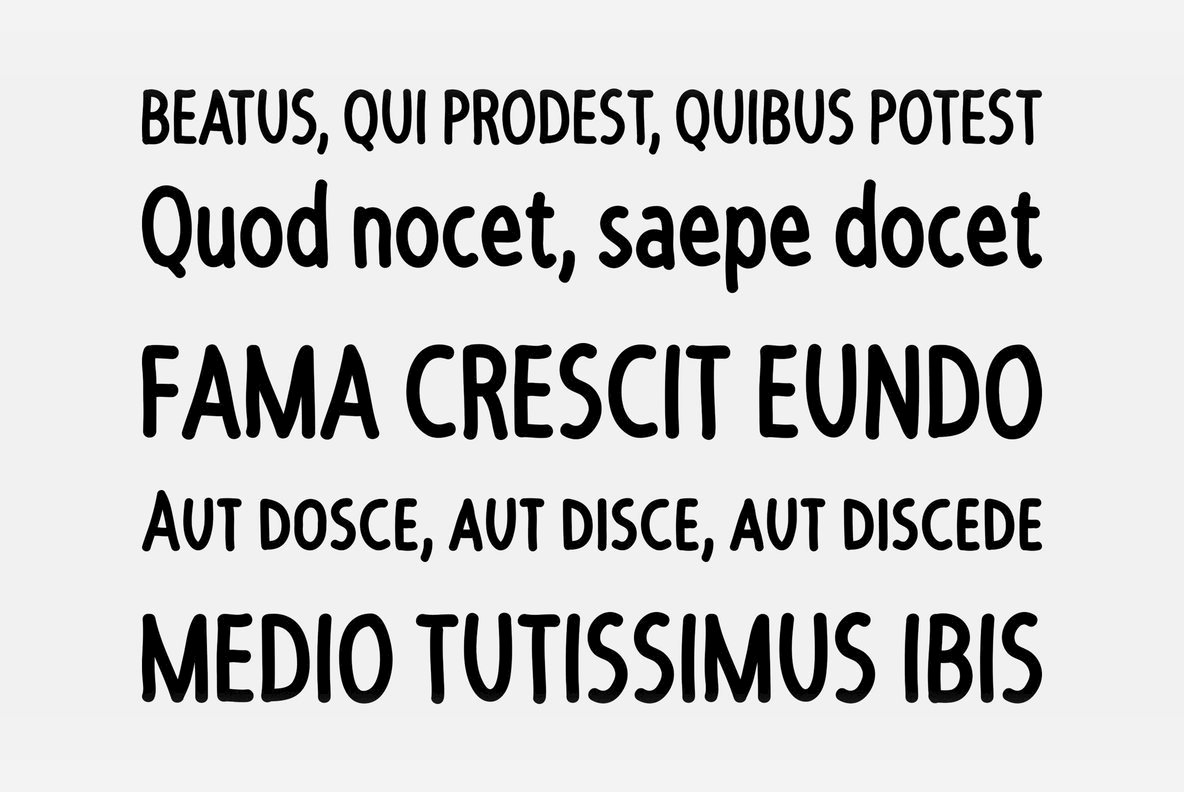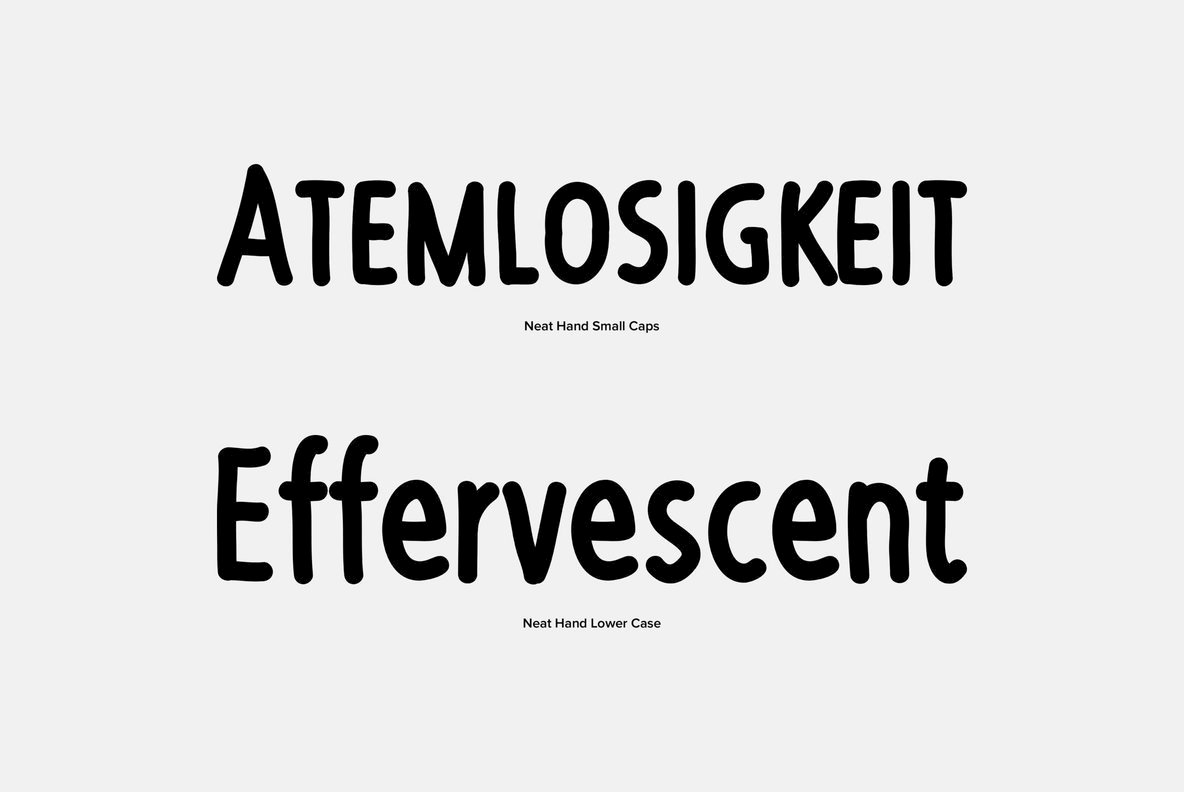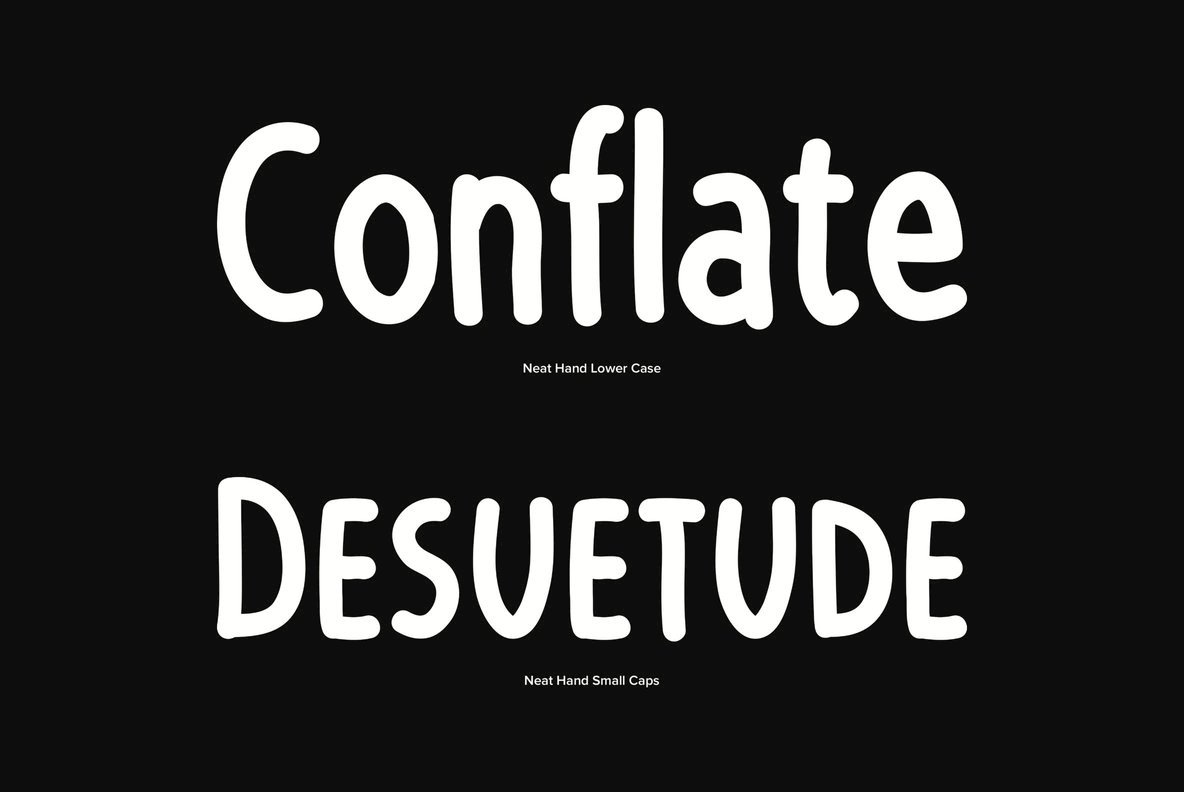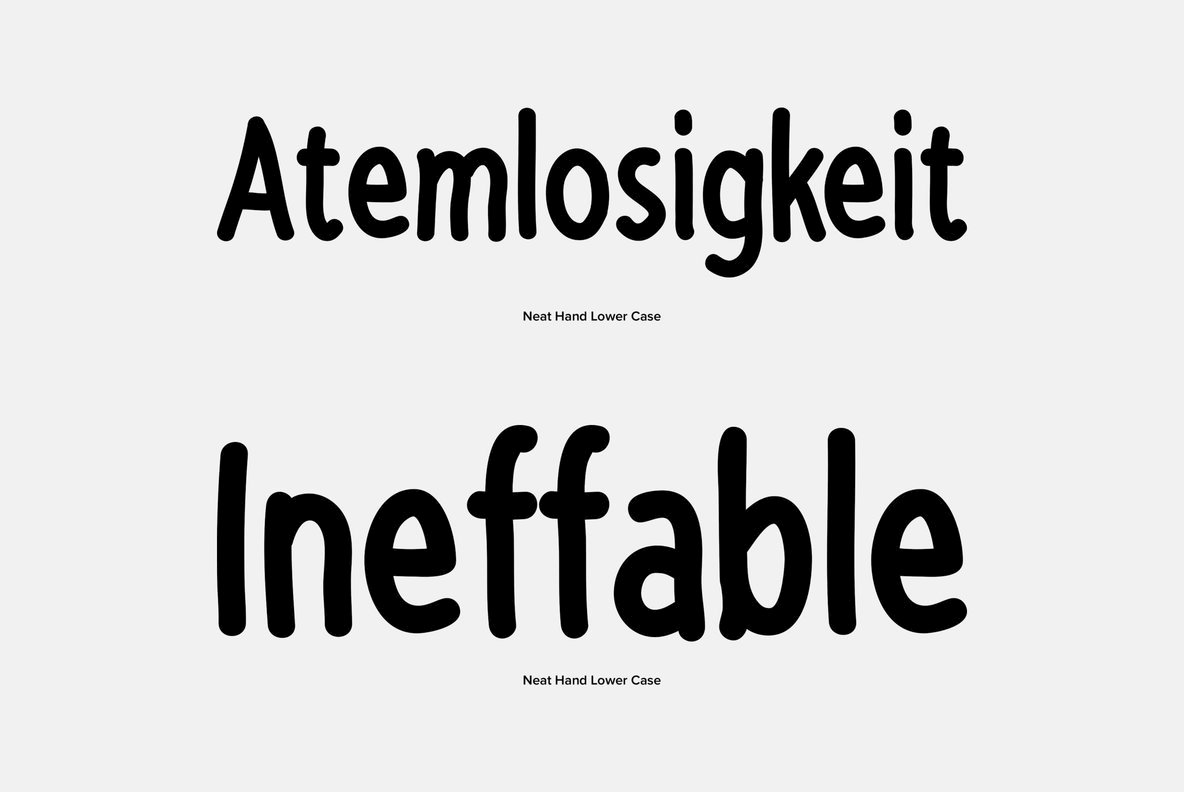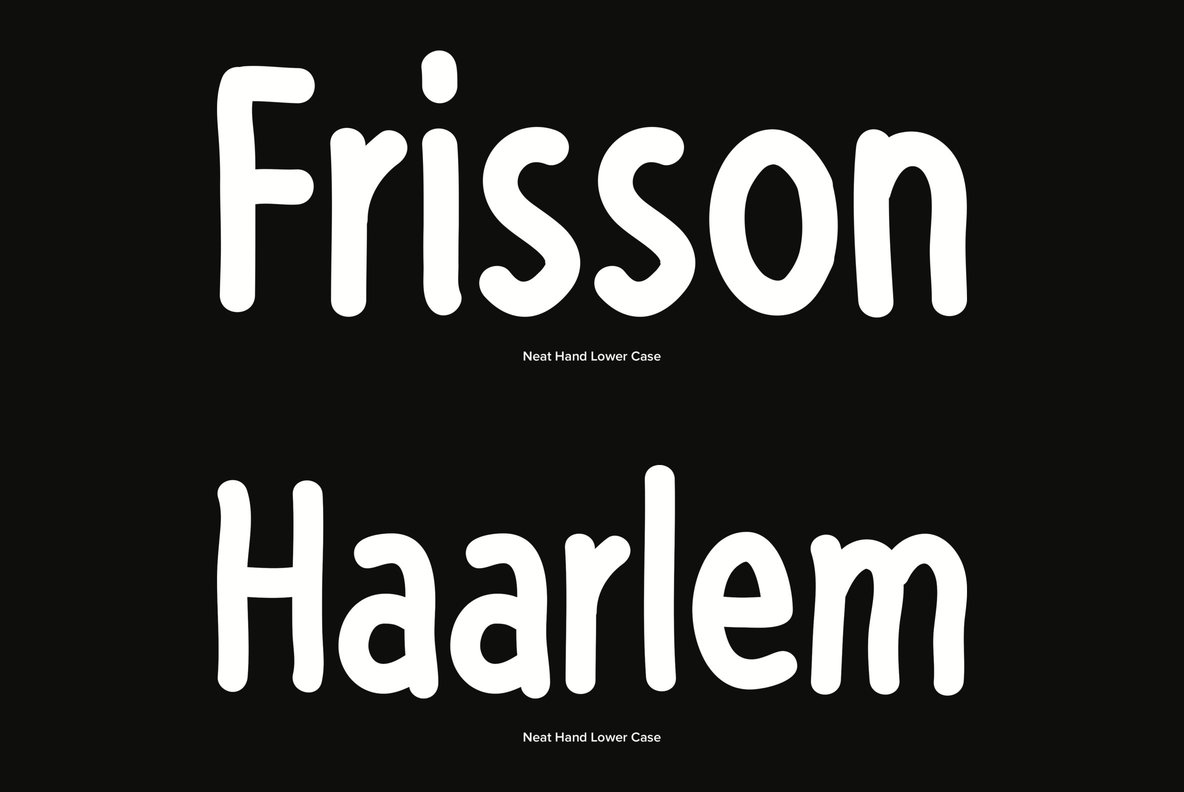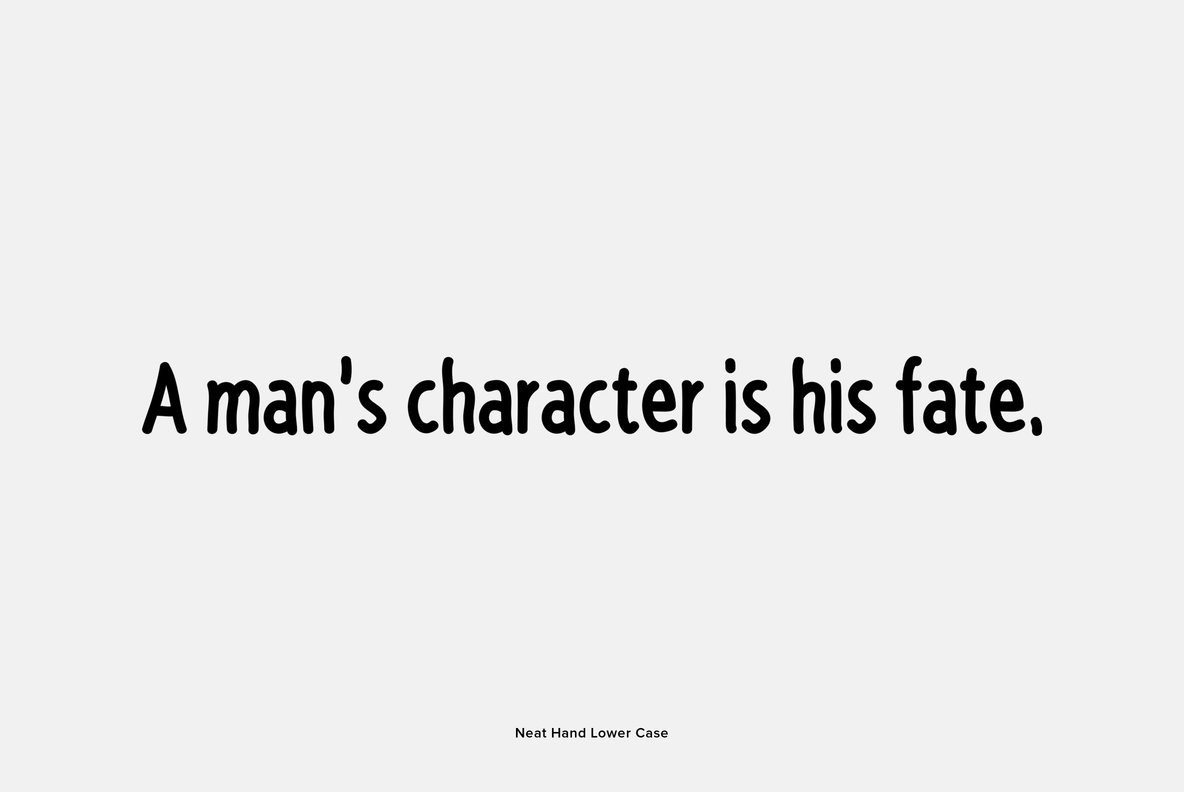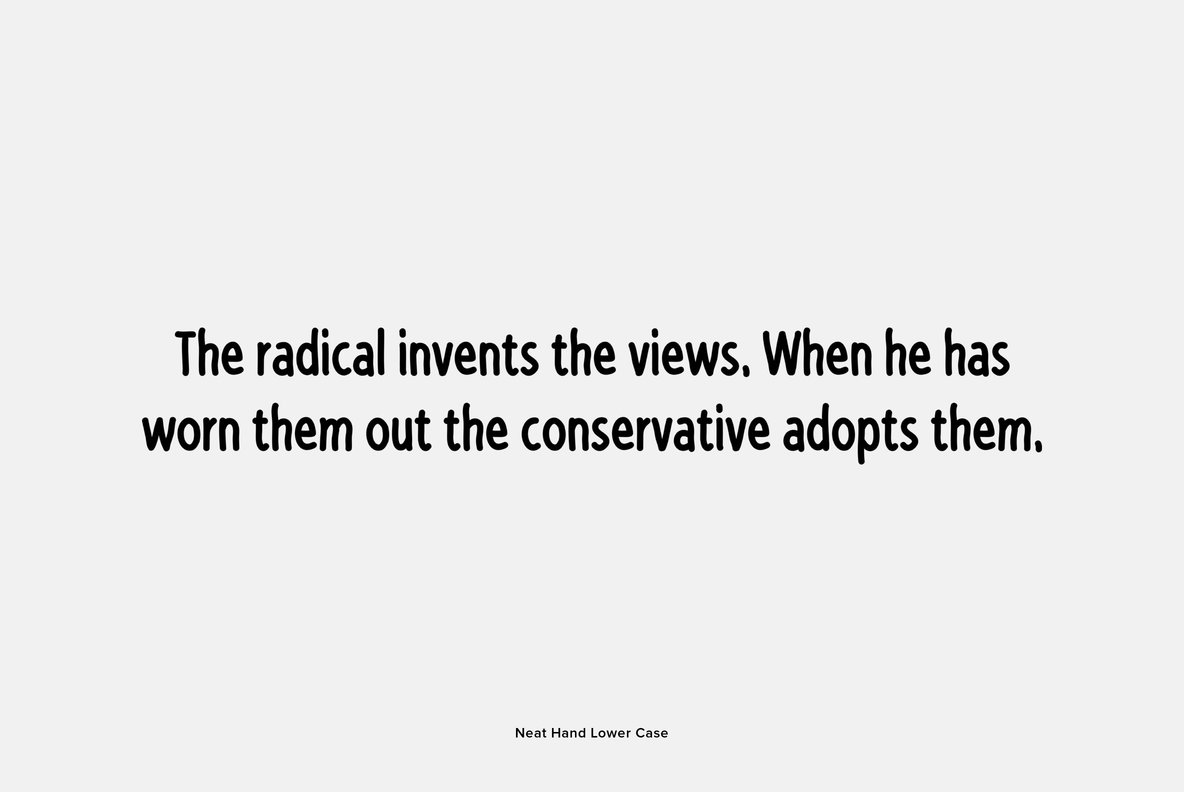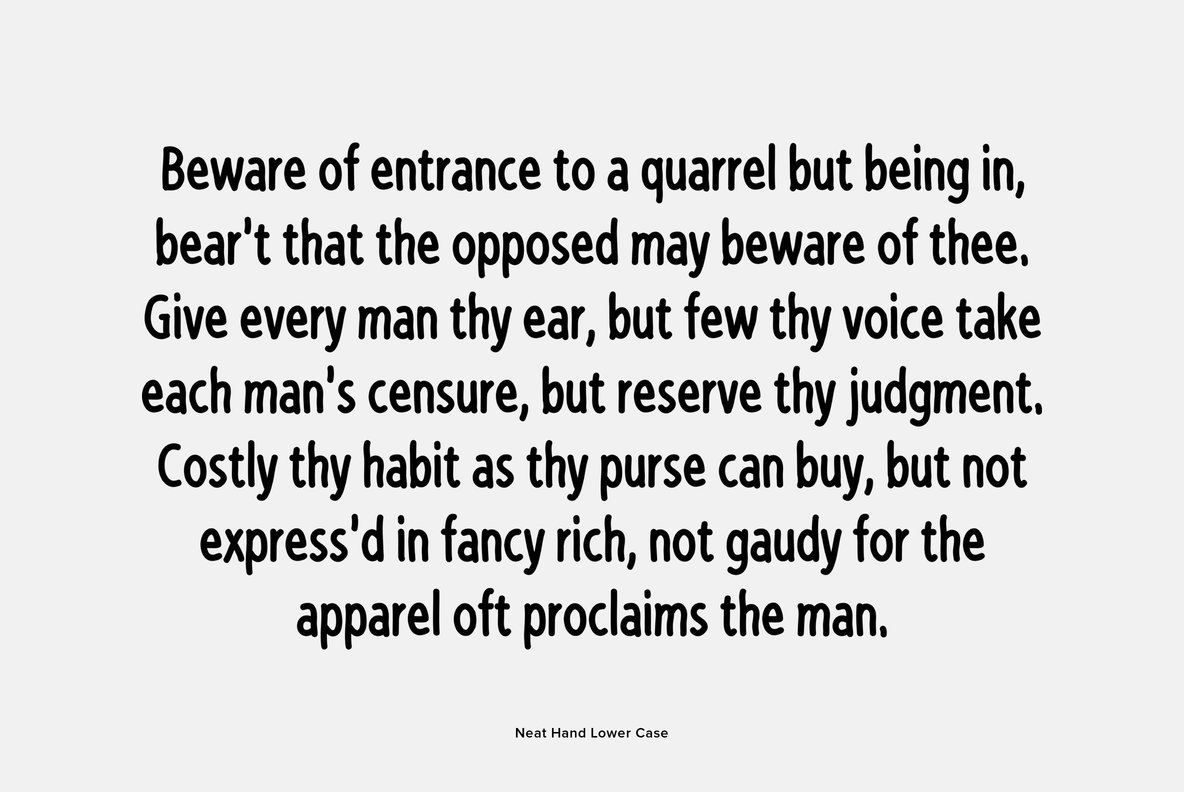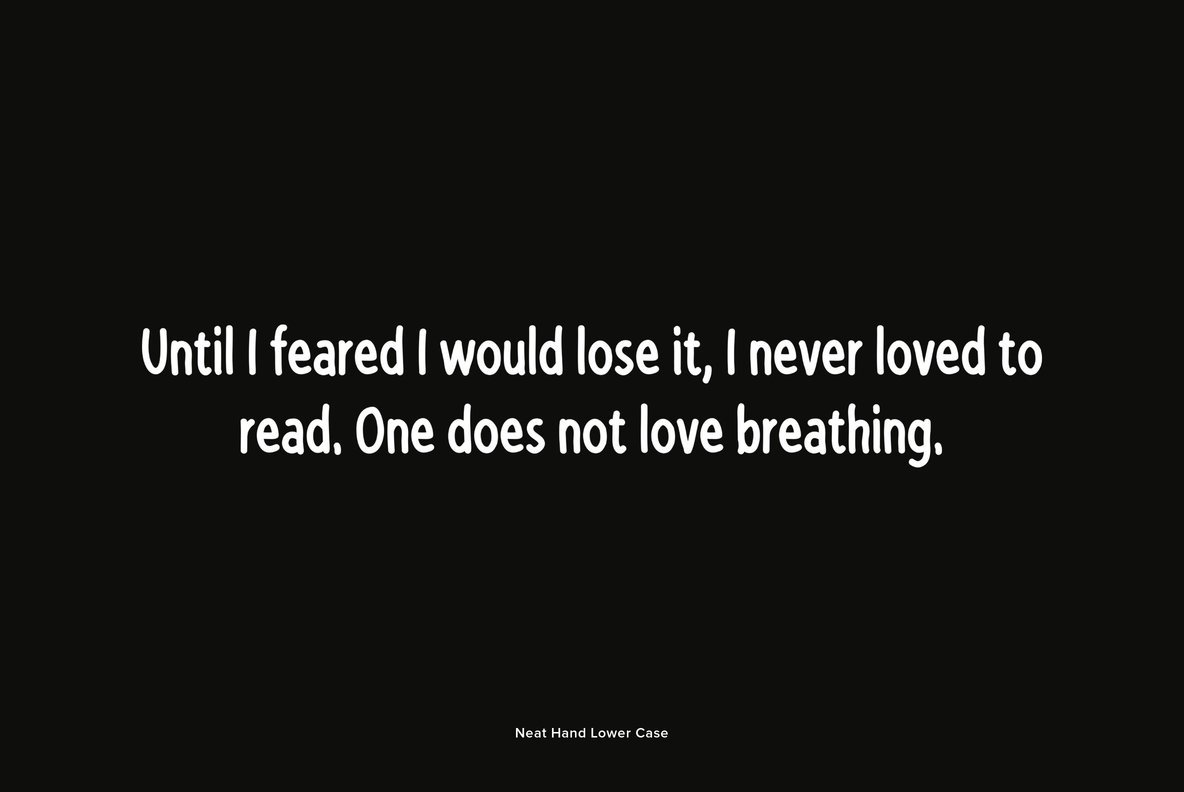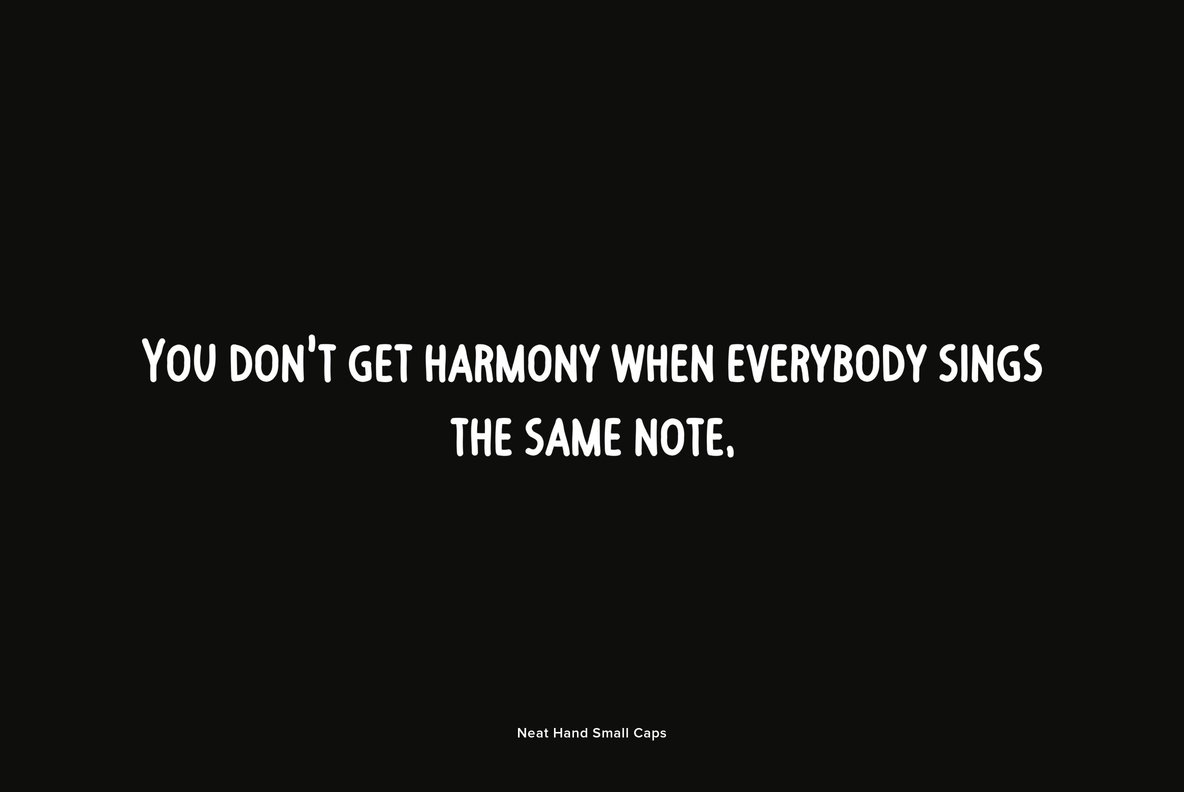
Neat Hand Font
Neat Hand is a neat hand-lettered sans serif font set. As their names imply Neat Hand Lower Case has a lowercase alphabet while Neat Hand Small Caps has small caps in place of the lowercase alphabet. Both fonts have the same uppercase alphabet, numbers, punctuation, symbols, and miscellaneous characters. The Neat Hand fonts are ideal for use where a neat but casual feel is desirable.